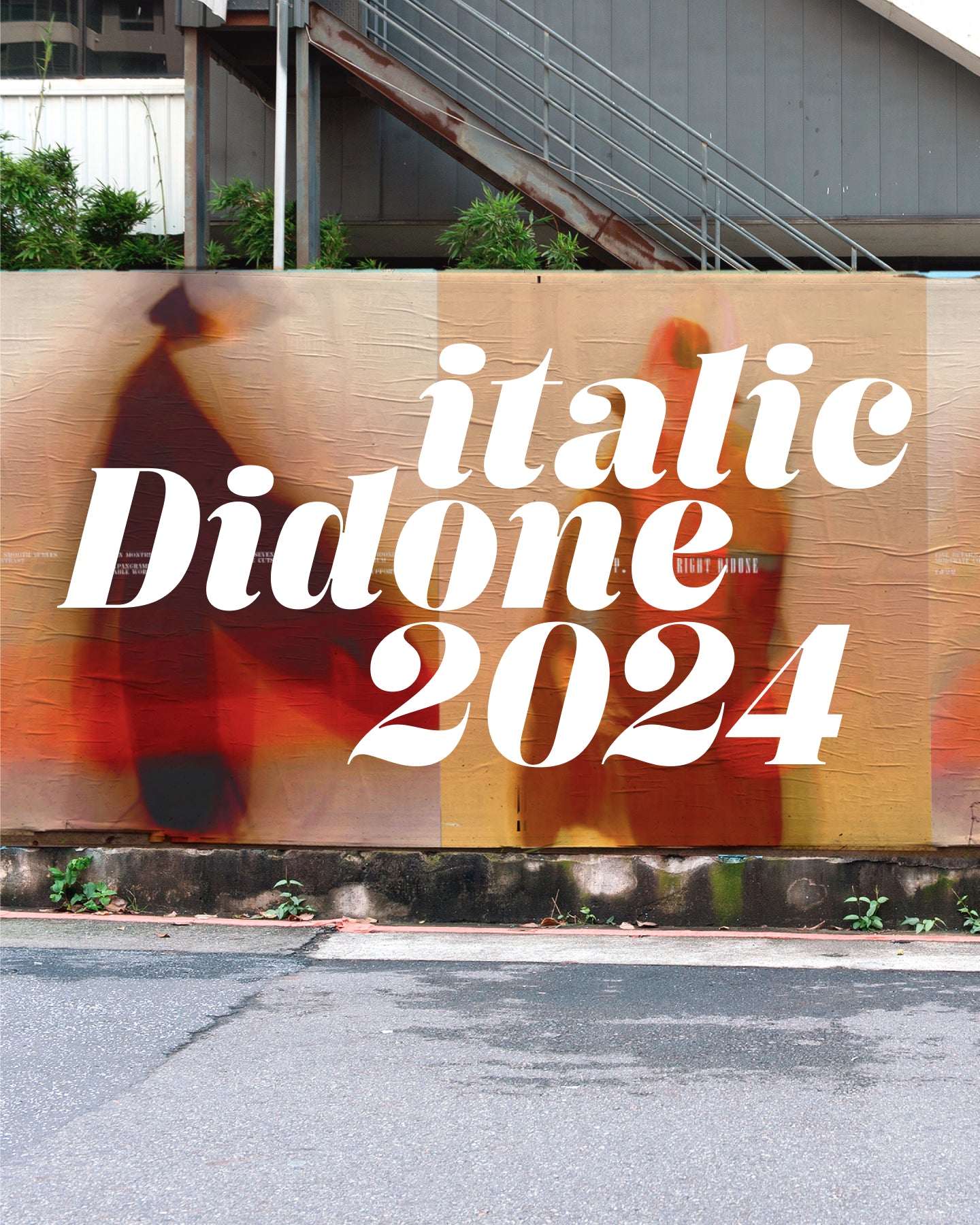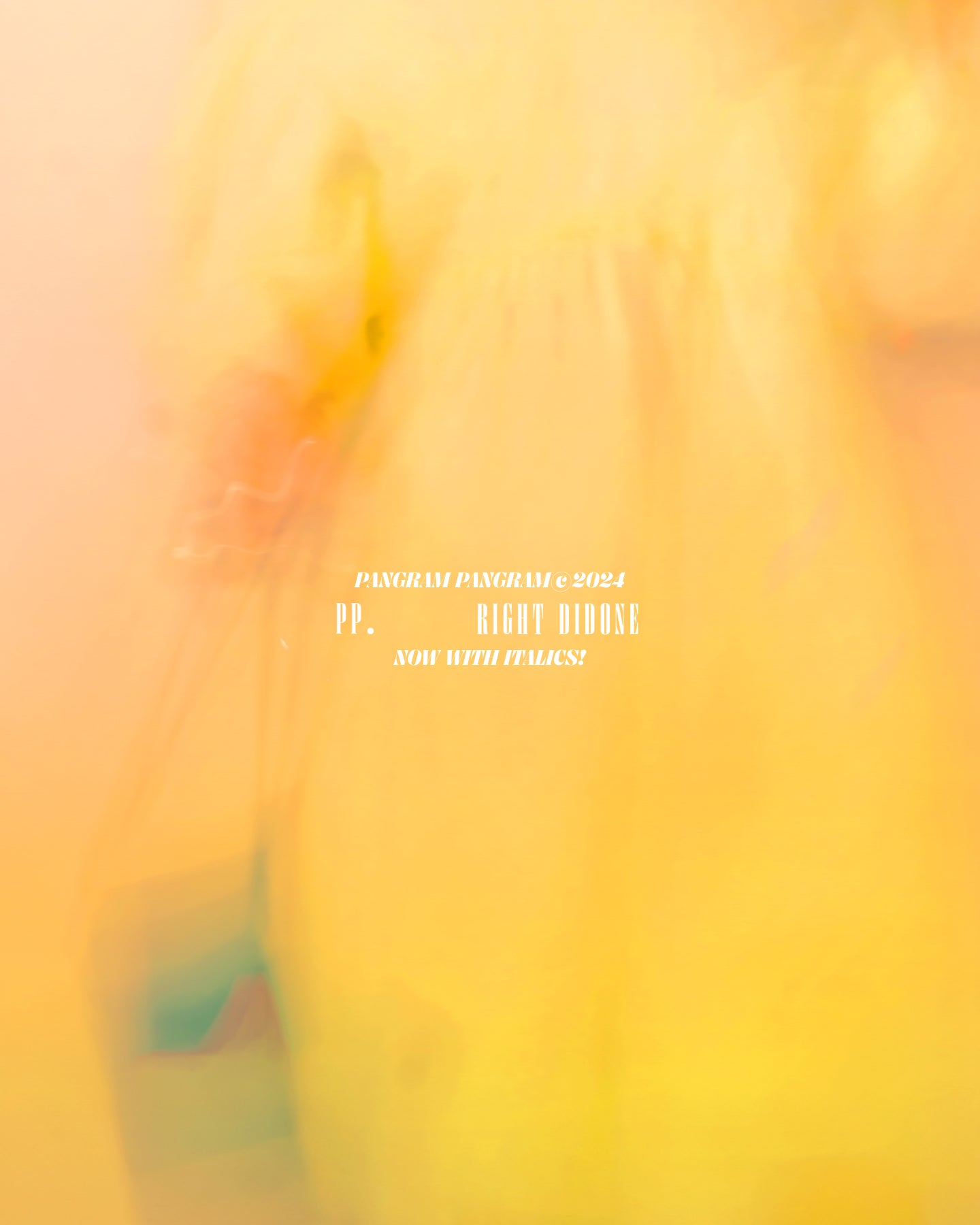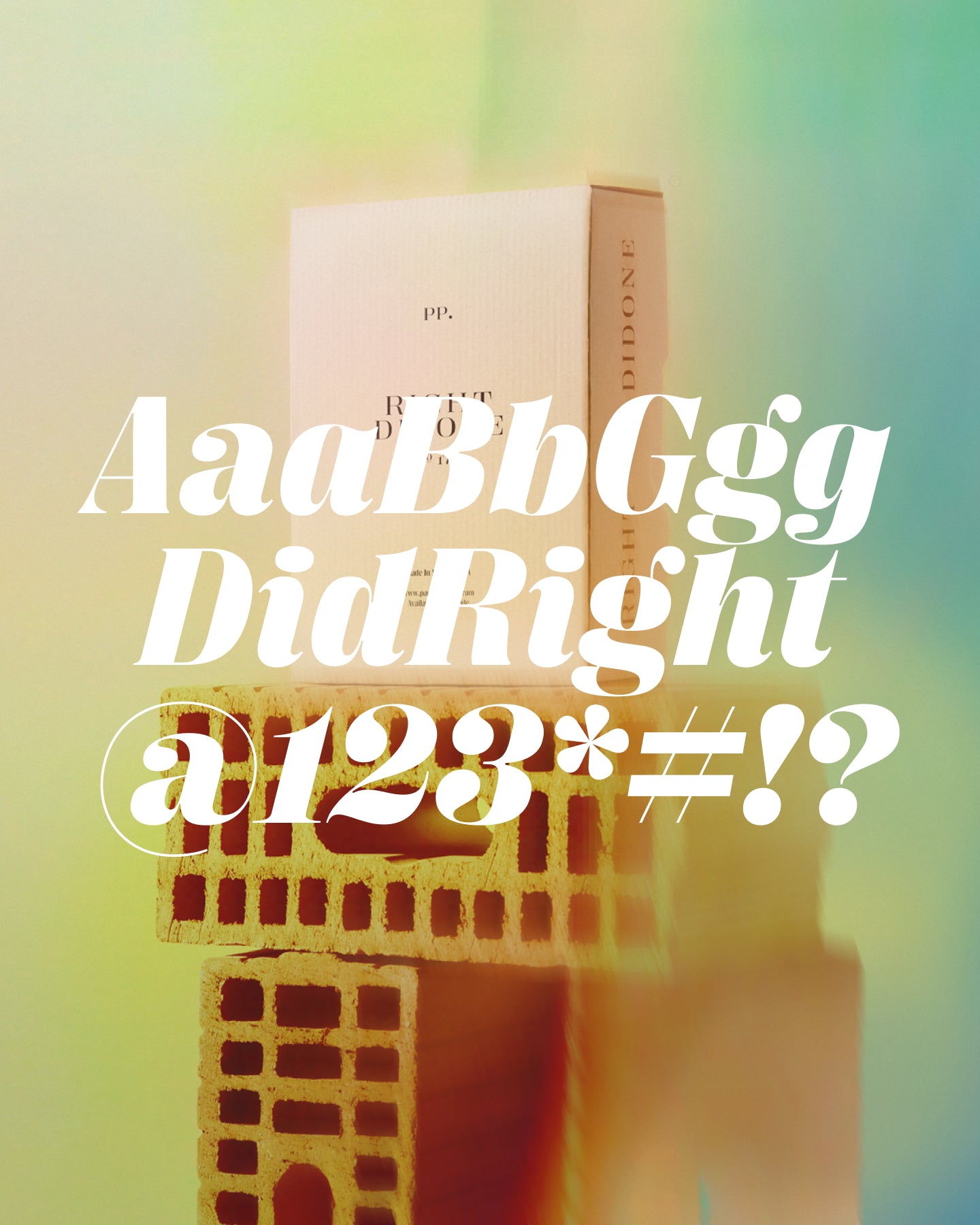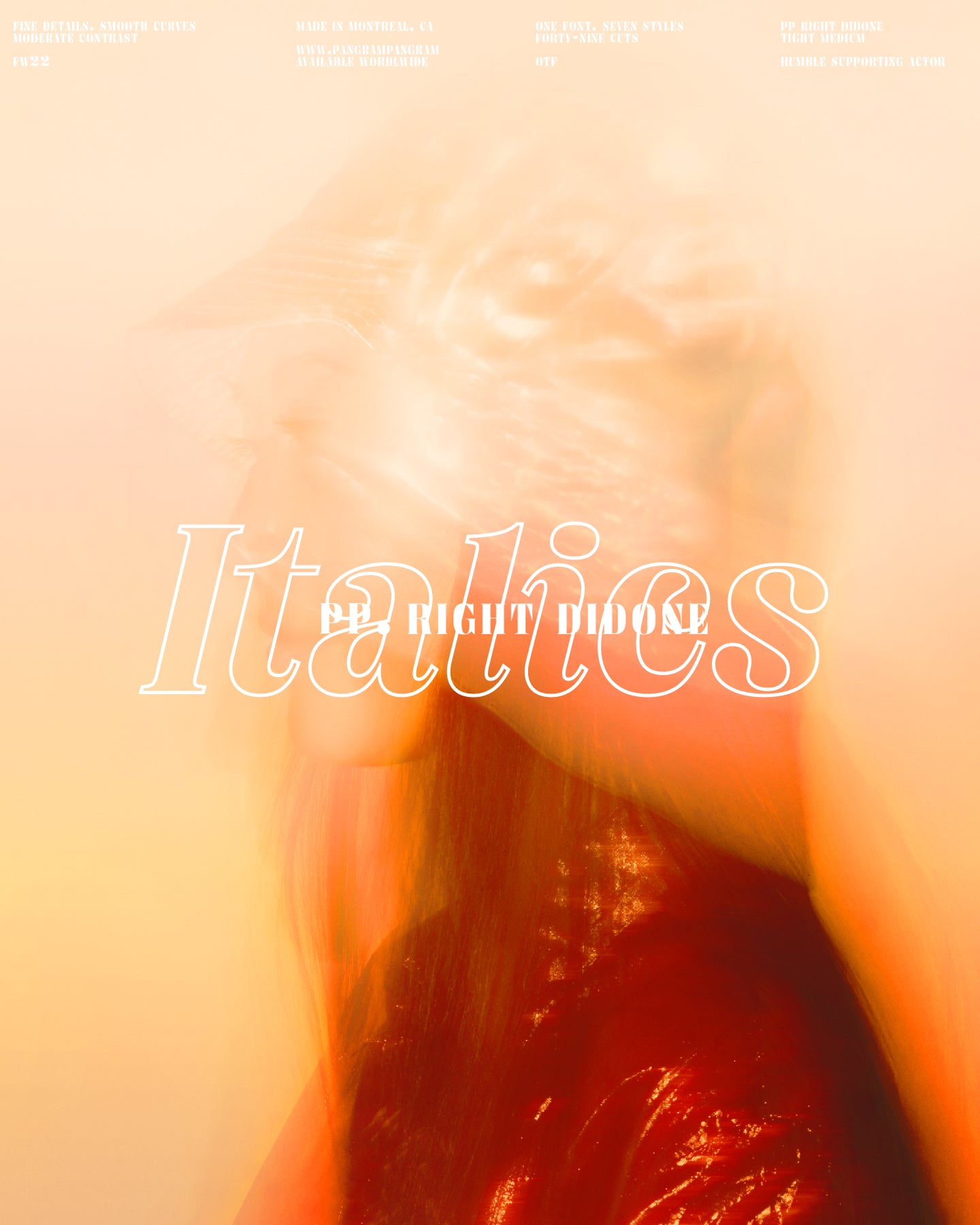
Right Didone Italic
Elegance, reprogrammed.
Right Didone Italic
Right Didone is not your professor’s serif, it’s smoother, sharper, and slightly rebellious.
Right Didone Italic
Right Didone is where classic sophistication gets a contemporary reboot—with a few quirks and a whole lot of contrast. Imagine the poise of traditional serif typography, but redrawn with modern confidence, saturated color, motion, and edge. This isn’t about nostalgia. It’s about reinterpretation.
Right Didone Italic
Crafted as a high-contrast serif by literally grafting serifs onto Right Sans and smoothing things out, Right Didone doesn’t follow the traditional revival route. In fact, it sidesteps it entirely. The result? A typeface that glows with elegance, but doesn’t feel precious or dated. It’s refined, yes—but not afraid to push boundaries. Some styles are soft, graceful, almost liquid. Others are crisp, daring, and angular. That duality gives Right Didone a surprisingly wide emotional range—from fashion-forward campaigns to avant-garde editorials to luxe, expressive branding. It’s a tool for designers who want serious visual impact without sacrificing originality. And thanks to its grotesk heritage, it brings unusual features to the table for a Didone: a large x-height, tons of weights and widths, and that sweet variable flexibility that makes it work anywhere from magazine covers to punchy websites. It’s built for big moments—display settings where you need to hold attention and do it with taste. This is Didone for a new era. Still glamorous, still confident—but reimagined with motion, color, attitude, and intention. It doesn’t just sit pretty on the page—it moves.
Right Didone Italic is variable
Right Didone Italic's Features
Alternate a
Alternate g
Circled Numerals
Black Circled Numerals
Arrow
Slashed Zero
Case sensitive forms
Fancy and smooth
Didone, the classic serif reinvented through a contemporary lens. We wanted to create imagery that balanced that feeling of classic typography motifs with a more contemporary edge. There is softness in the use of motion within the imagery that is contrasted through the application of type and bold saturated colours. These images invite you to reconnect and explore Didone like never before.
Right Didone beams elegance in a slightly quirky manner. Fancy and smooooth in some styles, edgy and sharp in others, this high-contrast type family works best when you need to catch eyes in a big way: posters, websites, magazine headlines, logotypes; you get the idea. Right Didone is more than “not a historical revival”—it was created by adding serifs to Right Sans and smoothing it out, an approach going very much against the natural flow. That’s also where a large x-height and a lot of styles come from, features typical for grotesks, but seldom seen among serif typefaces.